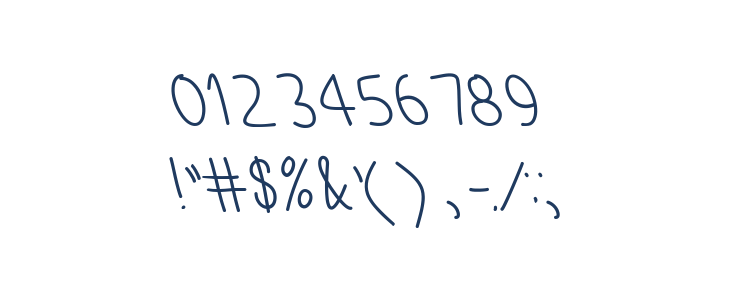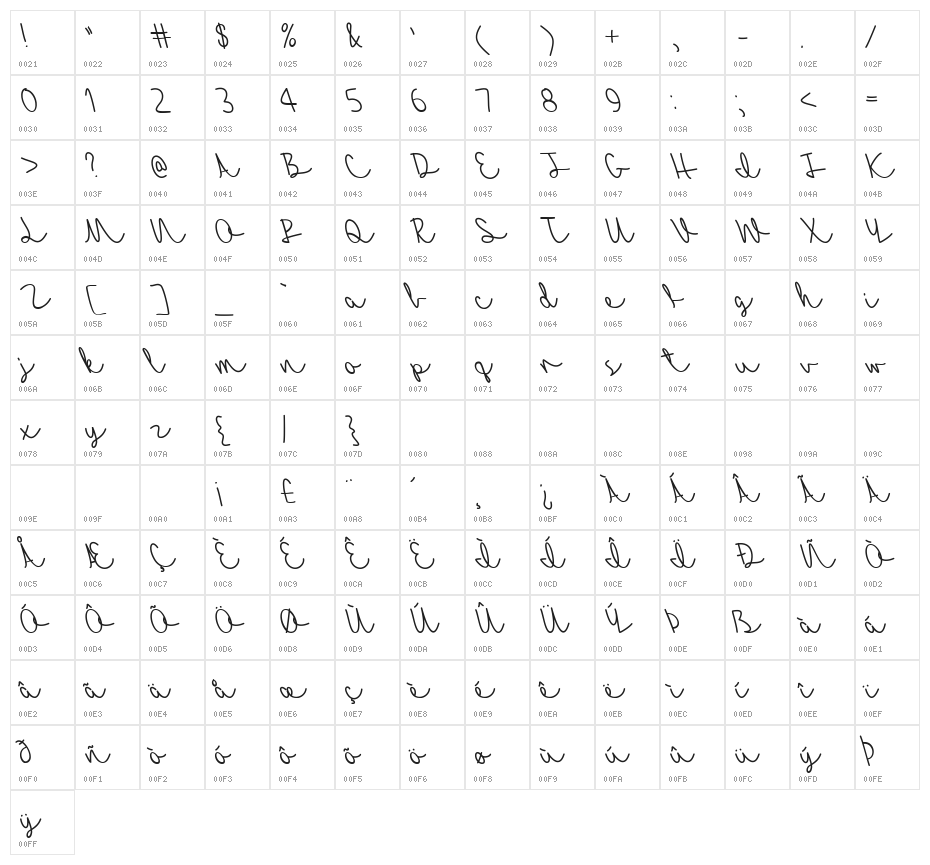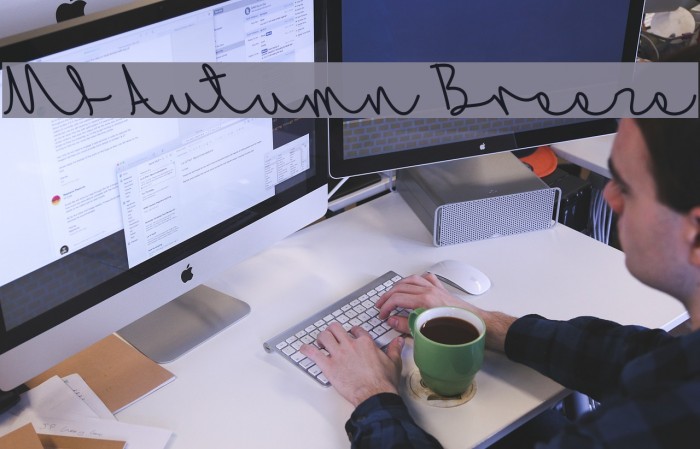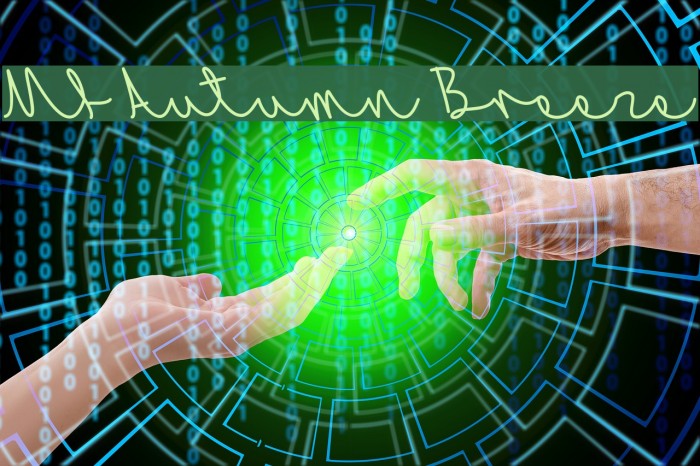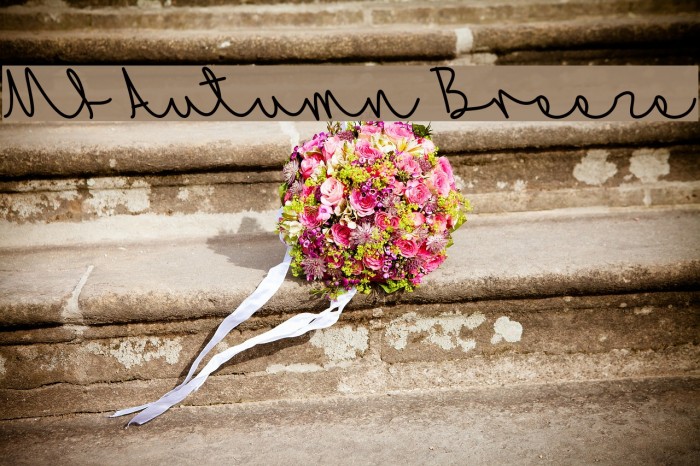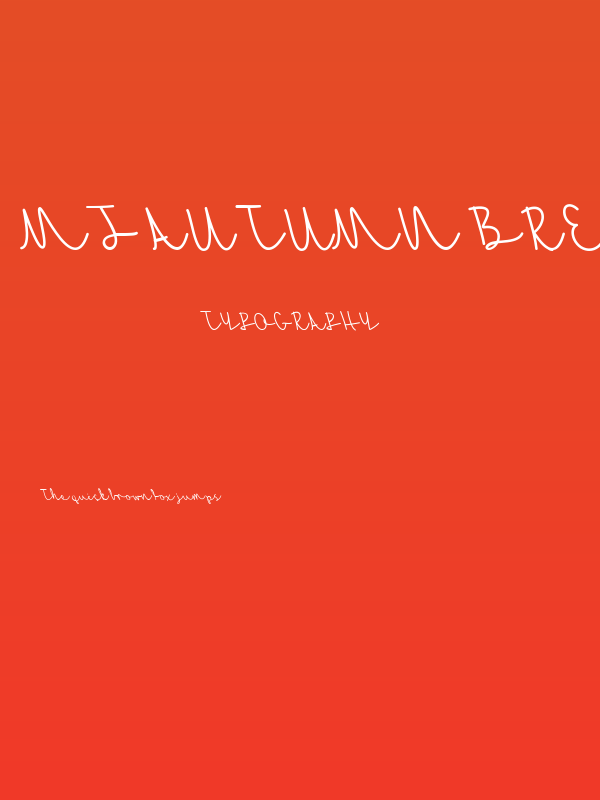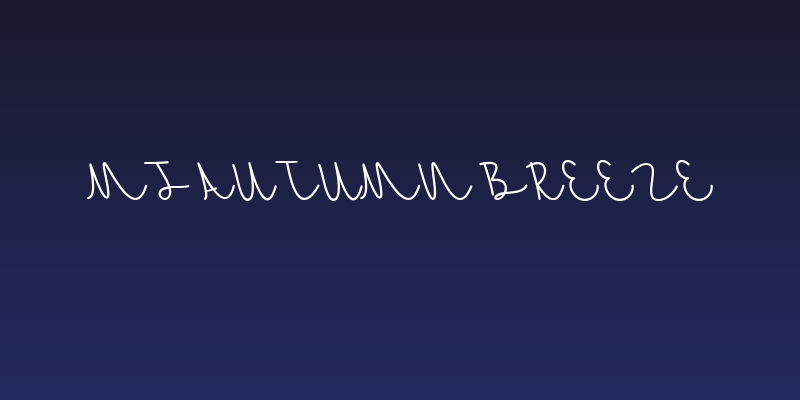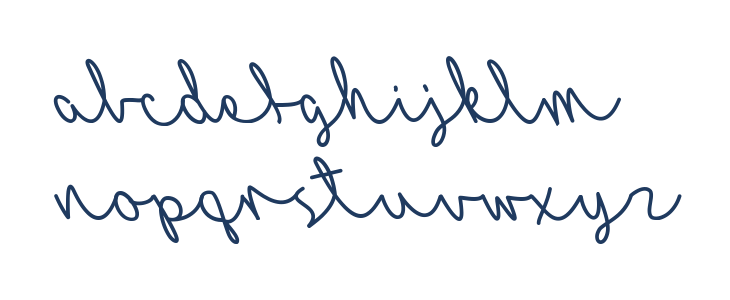
Mf Autumn Breeze Font
Mf Autumn Breeze Description
This font features a playful and casual handwritten style, characterized by its fluid and connected strokes. The letters have a natural flow, resembling cursive handwriting with a modern twist. The uppercase and lowercase letters maintain a consistent style, with rounded edges and smooth curves. The numbers and special characters follow the same aesthetic, ensuring a cohesive look across all elements. This font exudes a friendly and approachable vibe, making it suitable for projects that require a personal touch.
| Use Case | Logos, Headlines, Personal projects |
| Proposed Projects | Ideal for greeting cards, invitations, personal branding, and social media graphics. |